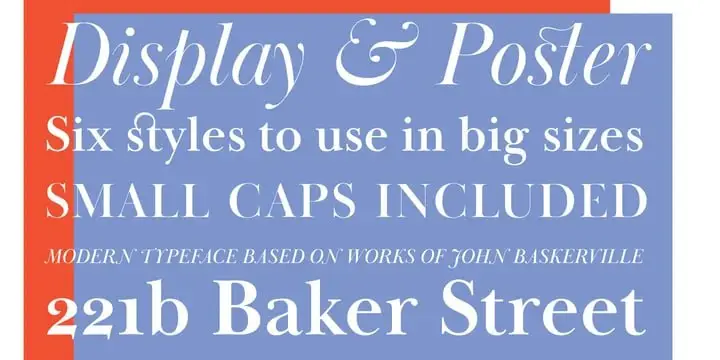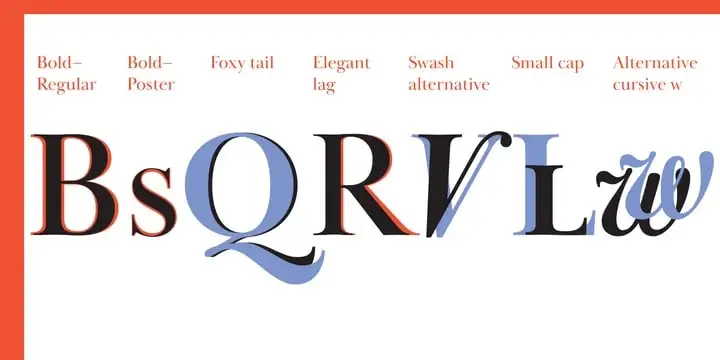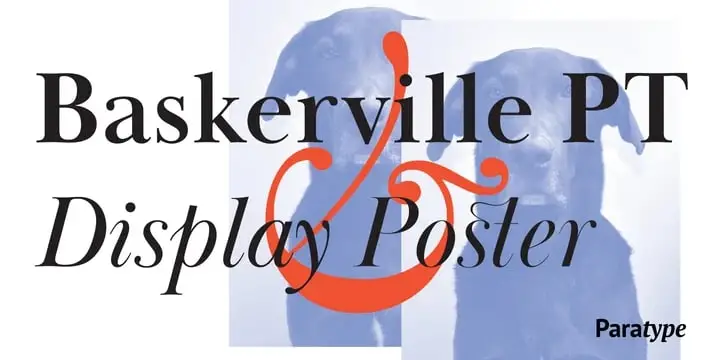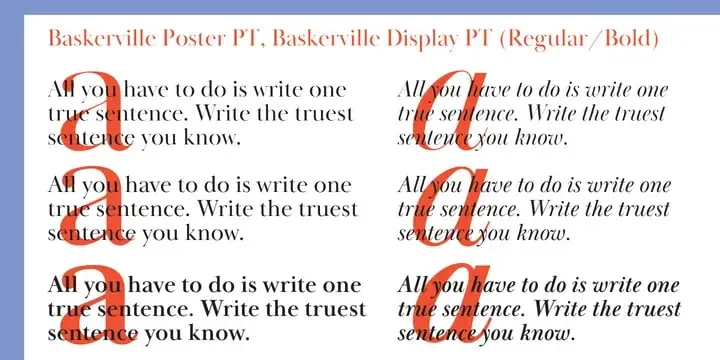
The Paratype-Baskerville Display Pt Font Family offers a sophisticated blend of classic elegance and modern versatility. This extended font family supports both Latin and Cyrillic scripts, making it an excellent choice for a wide range of design projects.
- Multiple weights and styles for versatile usage
- Extended Latin and Cyrillic character sets
- High-quality typography suitable for both print and digital media
Ideal for branding, logos, editorial design, and any project that requires a touch of sophistication. The combination of styles allows for creative flexibility across various media.